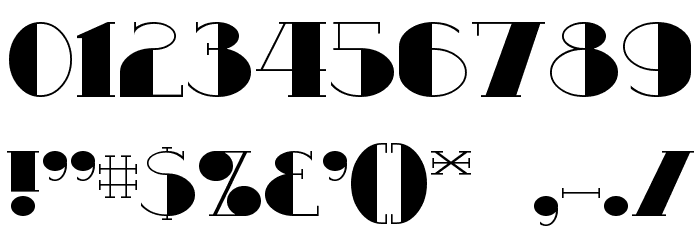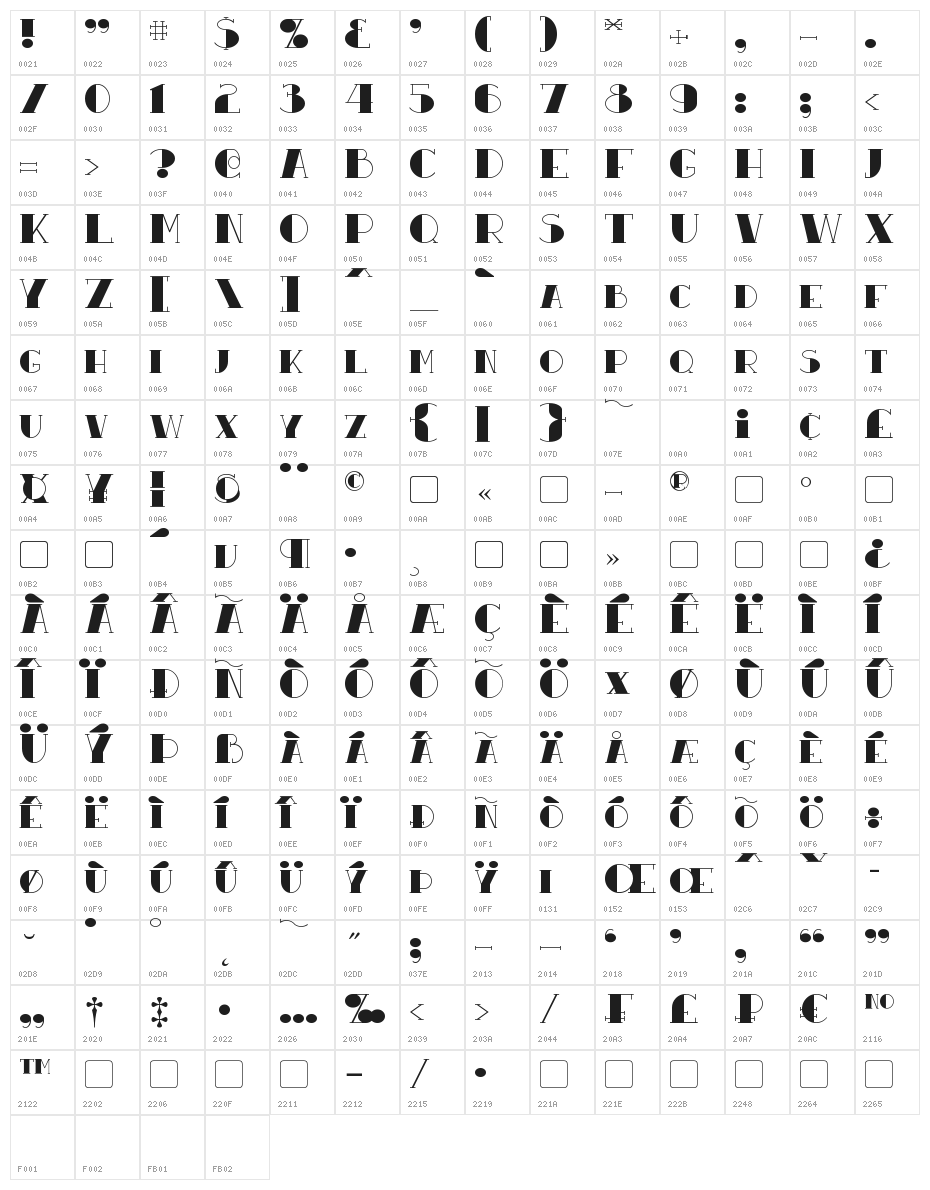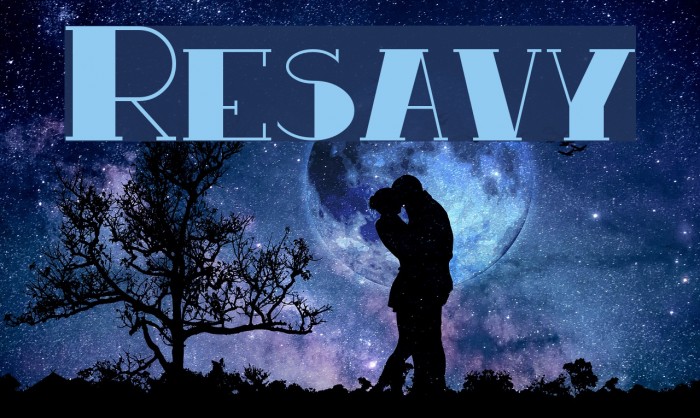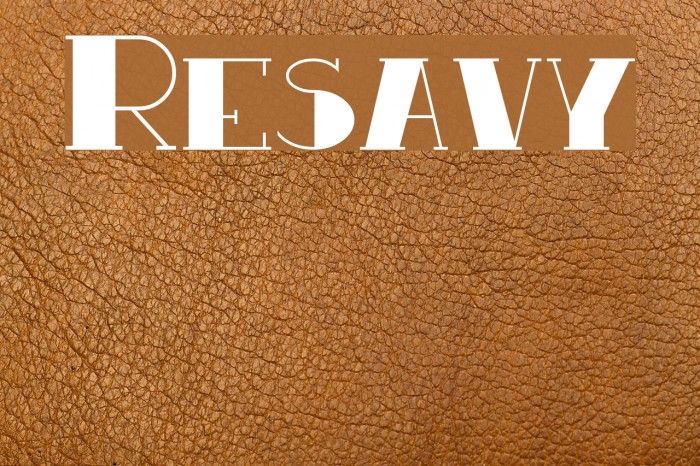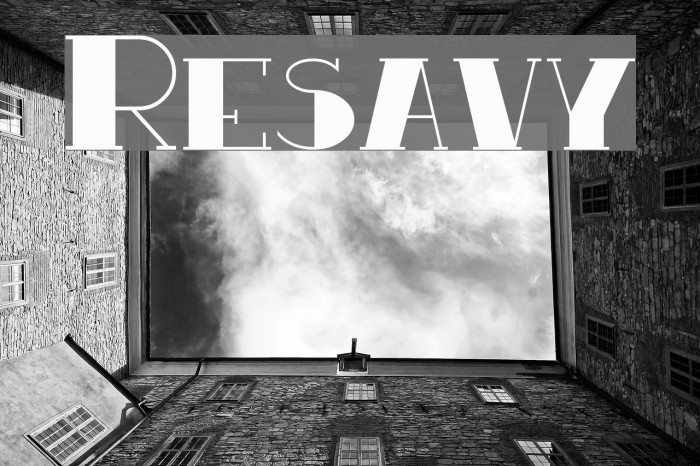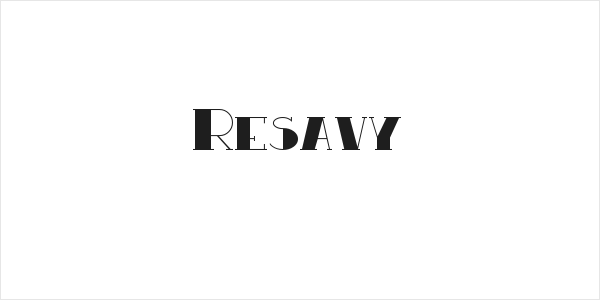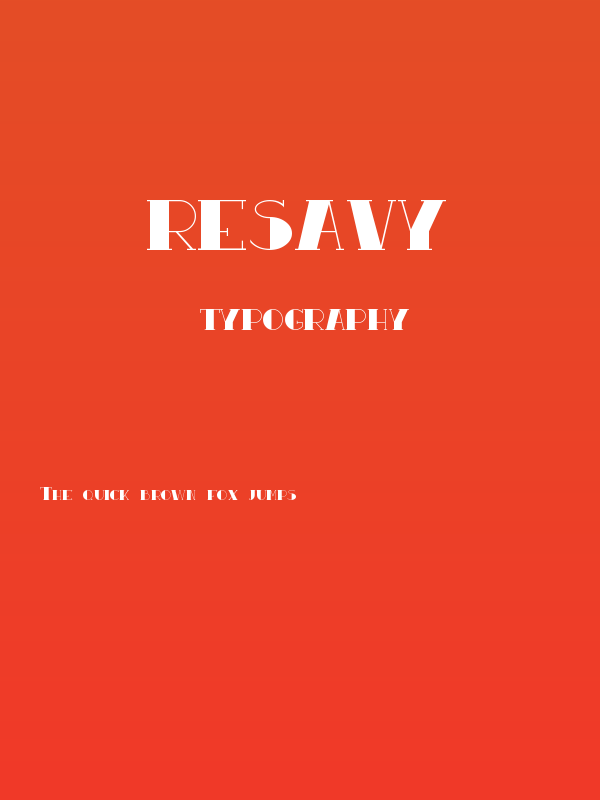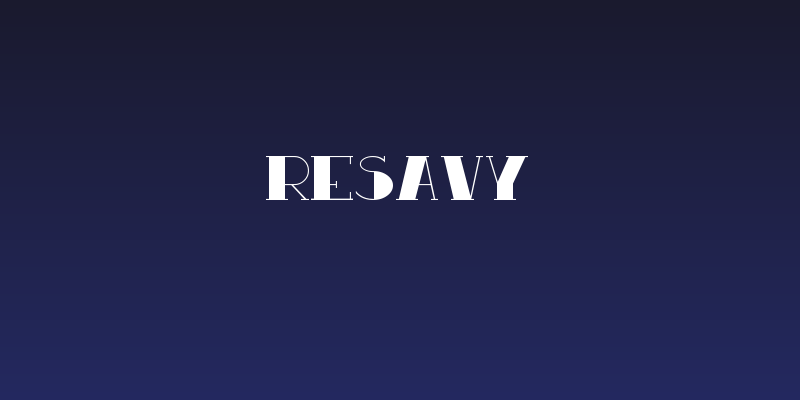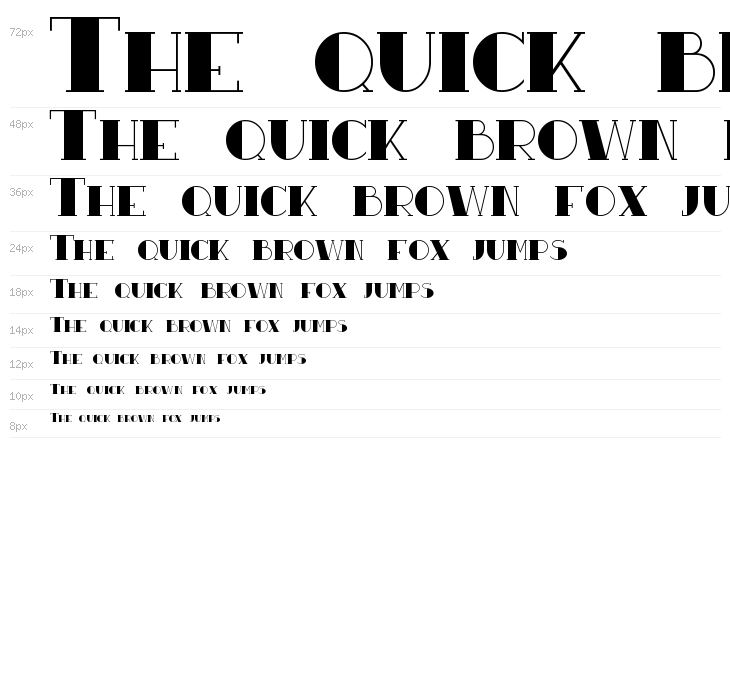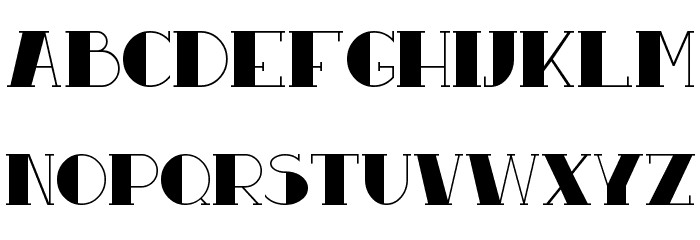
Resavy Font
Resavy Description
This font exhibits a striking blend of modern and vintage aesthetics, characterized by its bold, geometric shapes and high contrast between thick and thin strokes. The uppercase letters are particularly eye-catching, with unique cutouts and angular forms that give them a distinctive, artistic flair. The lowercase letters maintain this boldness while offering a slightly more subdued appearance, making them versatile for various design contexts. Numbers and special characters follow the same stylistic approach, ensuring consistency throughout the typeface. The overall design is both decorative and functional, making it suitable for a wide range of creative applications.